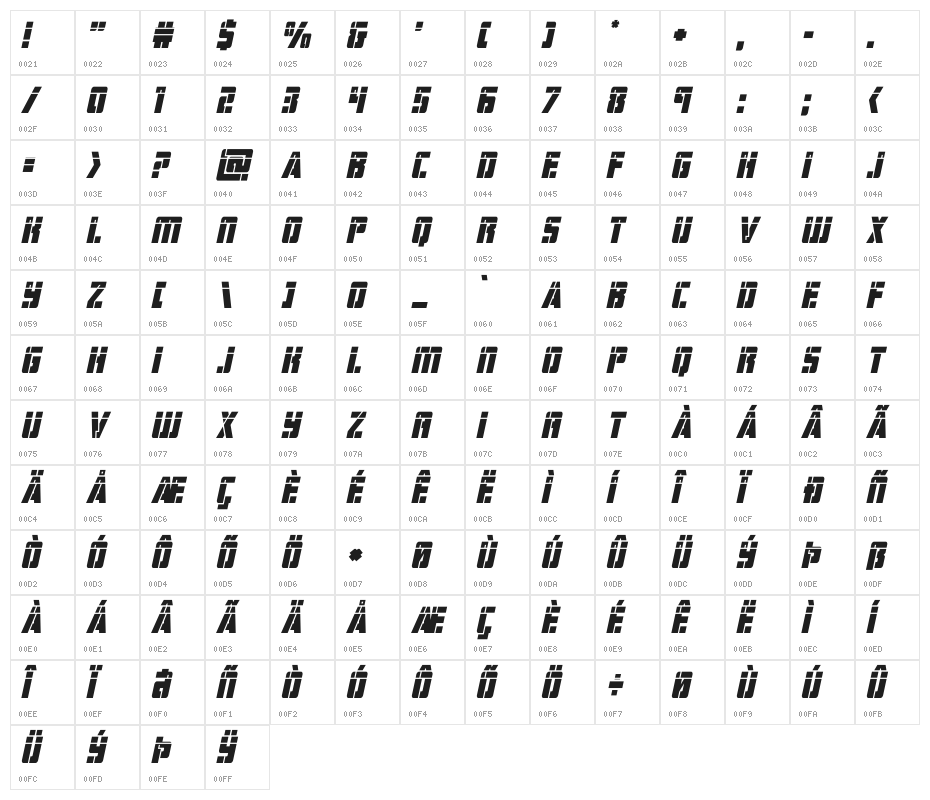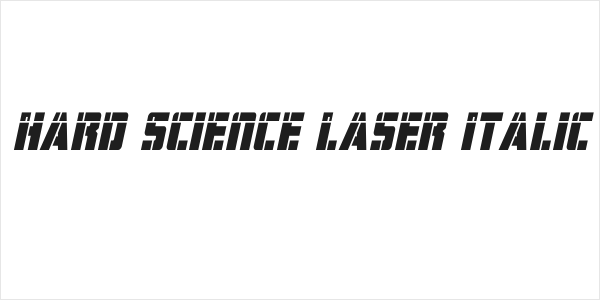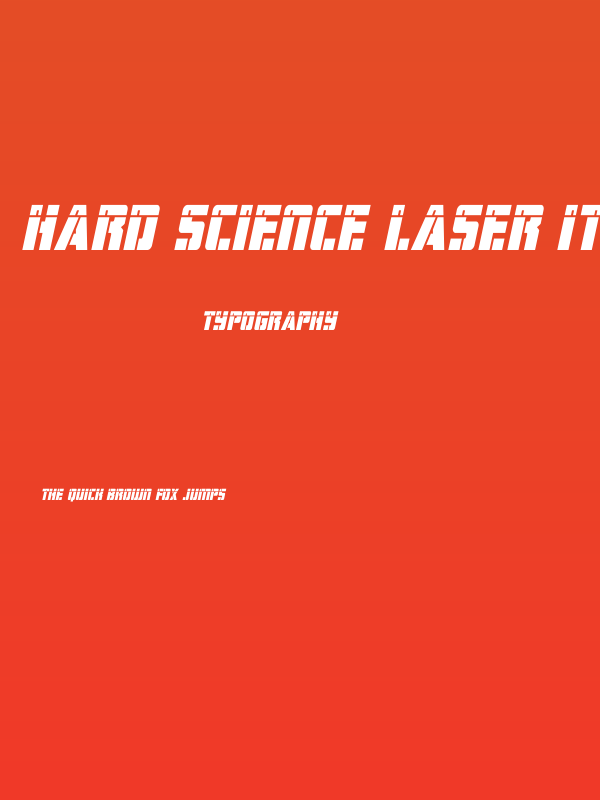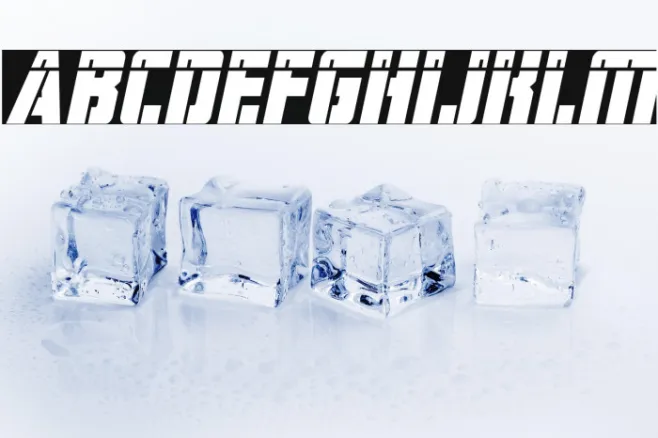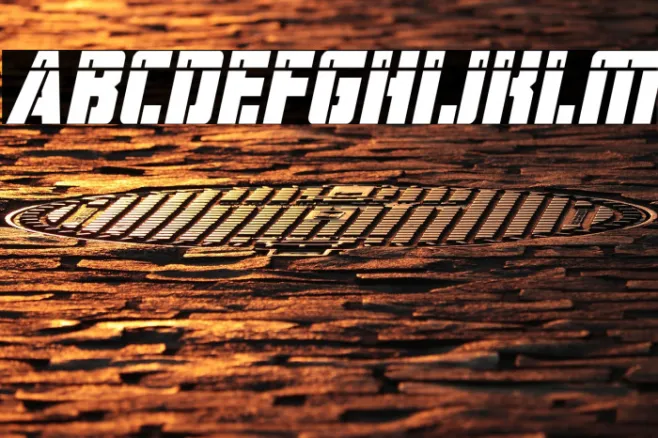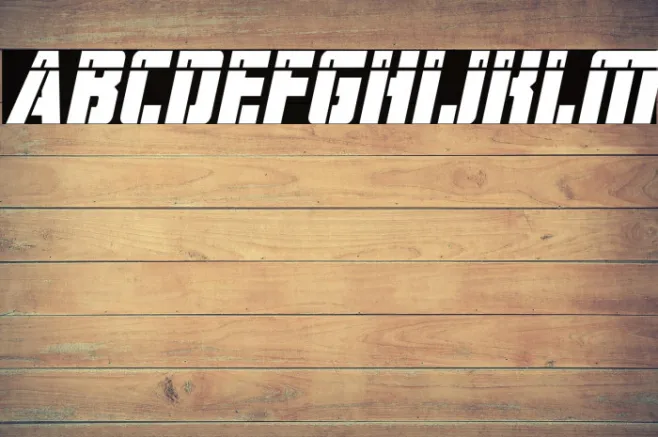
Hard Science Laser Italic Font
Hard Science Laser Italic Description
This font features a bold, futuristic design with a strong emphasis on angular shapes and sharp edges. The characters are italicized, giving a sense of motion and speed. The uppercase and lowercase letters maintain a consistent style, with a unique geometric flair that makes each character stand out. The numbers and special characters follow the same design principles, ensuring uniformity across all glyphs. The font's overall appearance is modern and dynamic, making it suitable for projects that require a cutting-edge, high-tech aesthetic.
| Proposed Projects | Ideal for sci-fi themed projects, technology branding, video game titles, and futuristic posters. |